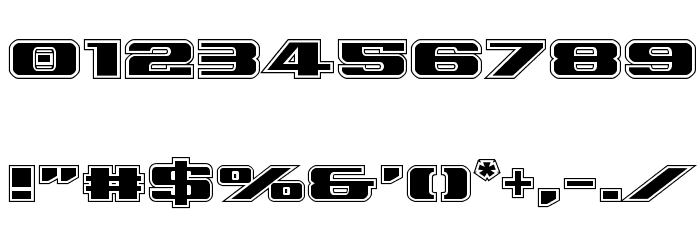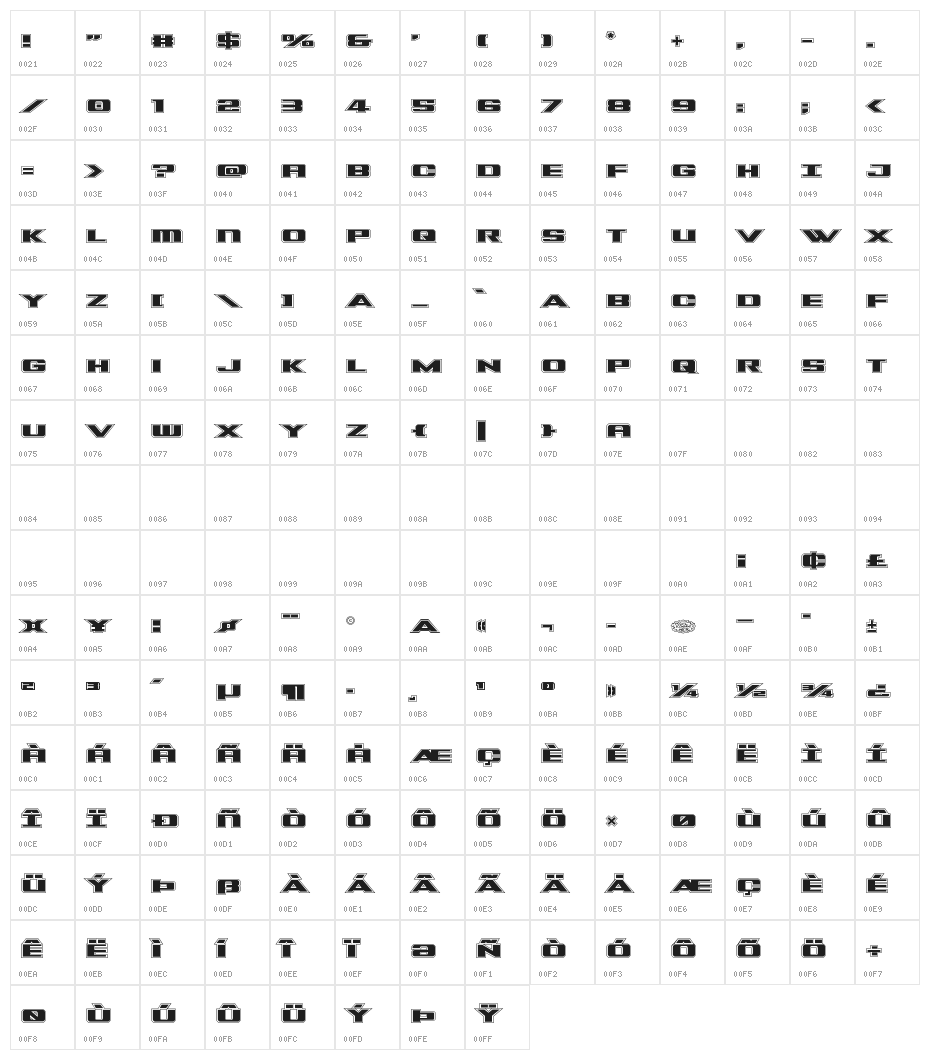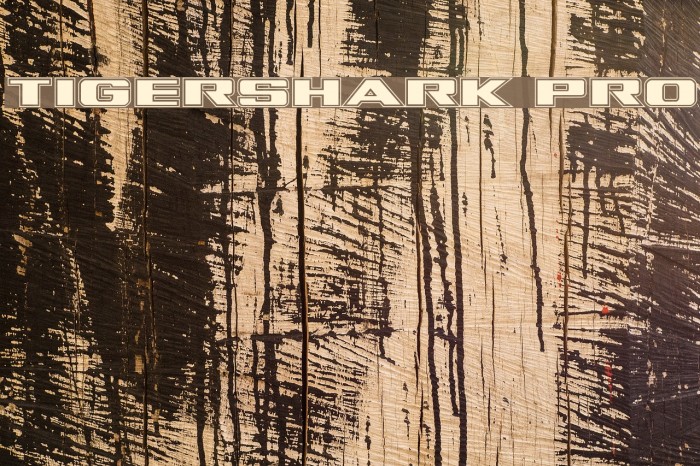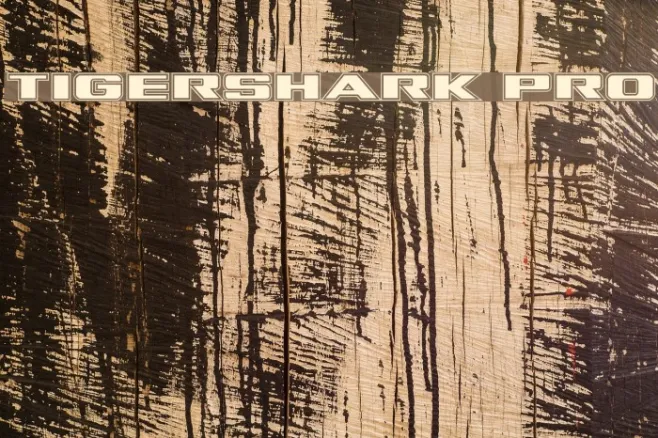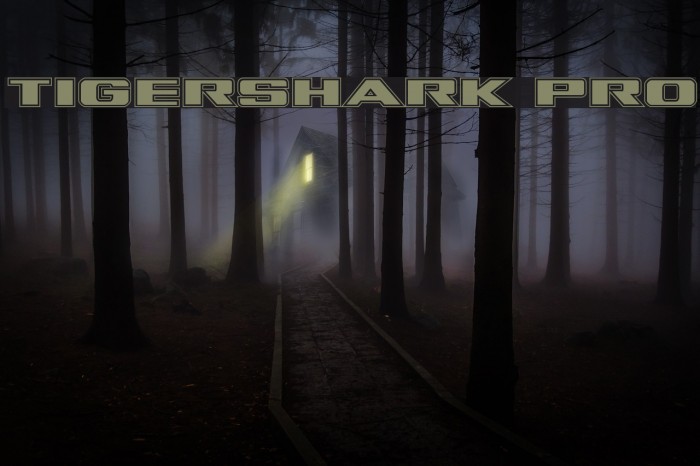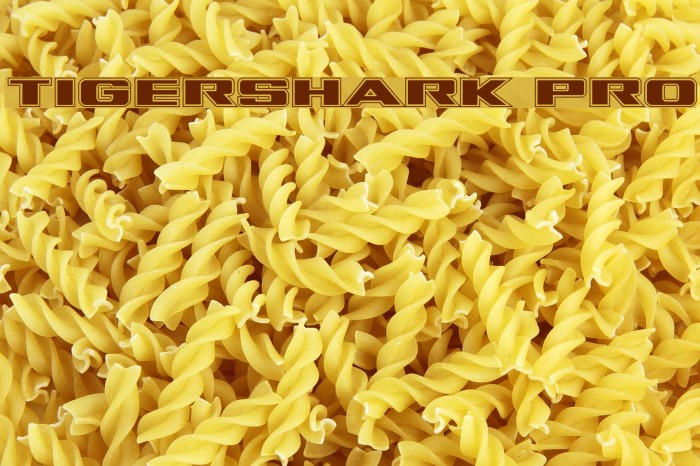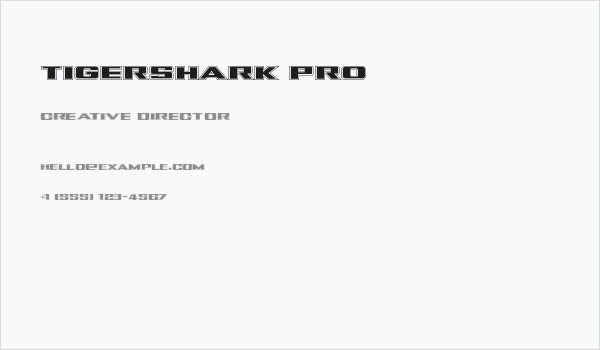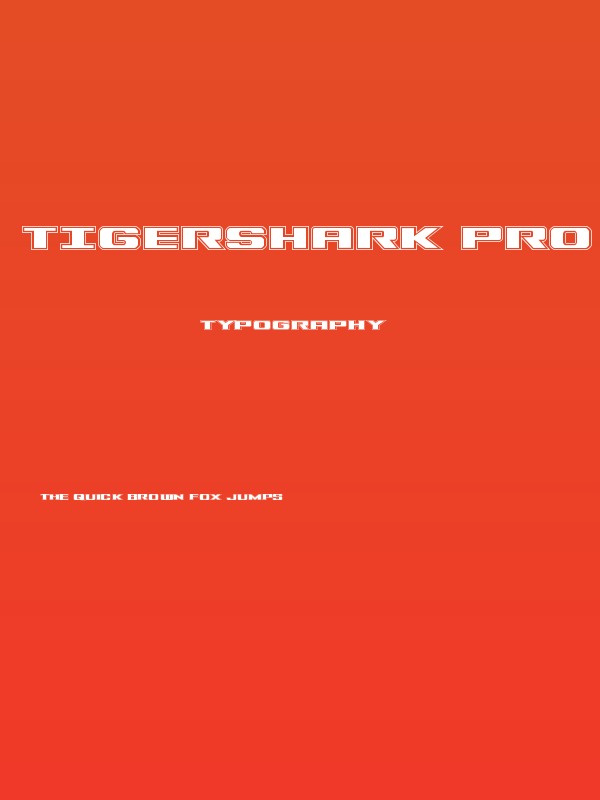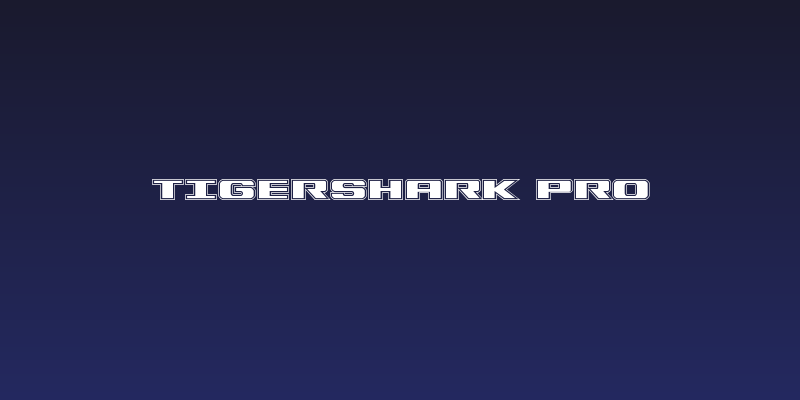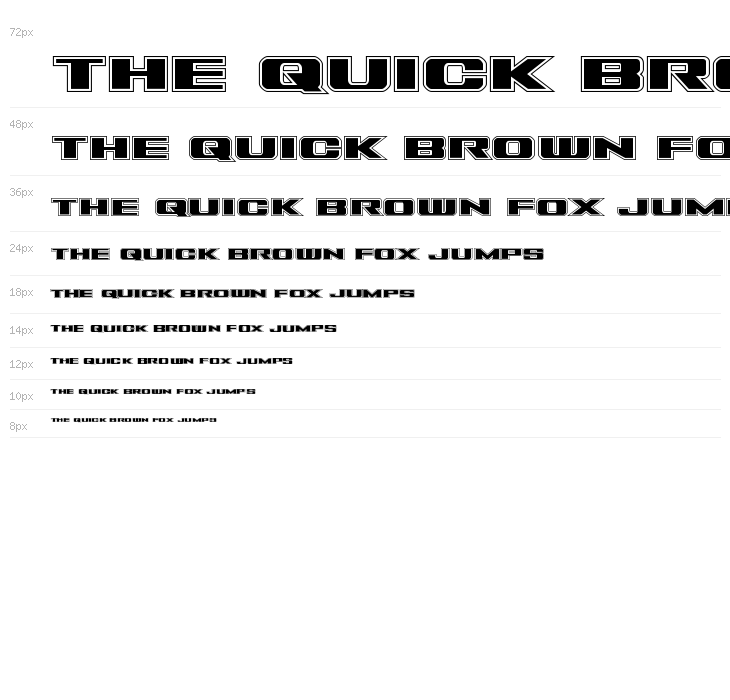
Tigershark Pro Font
Tigershark Pro Description
This font features a bold, geometric design with a strong presence, characterized by thick, block-like letters that are outlined for added emphasis. The uppercase letters are uniform in height, creating a cohesive and structured appearance. The font's style is reminiscent of industrial or futuristic themes, making it suitable for projects that require a modern and impactful look. The numbers and special characters maintain the same bold and outlined style, ensuring consistency across all elements. The overall design is clean and precise, with a slight emphasis on angular shapes and straight lines.